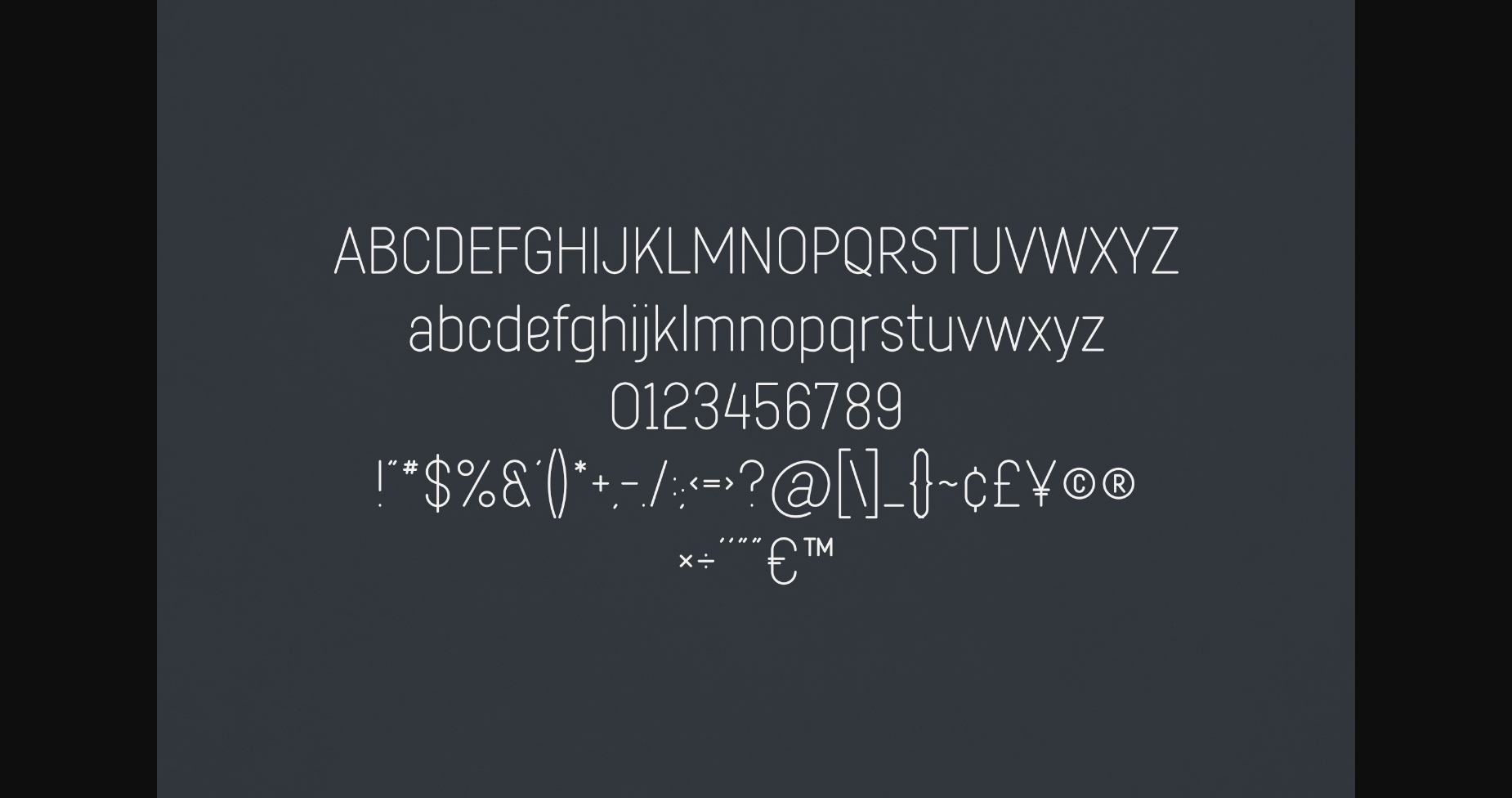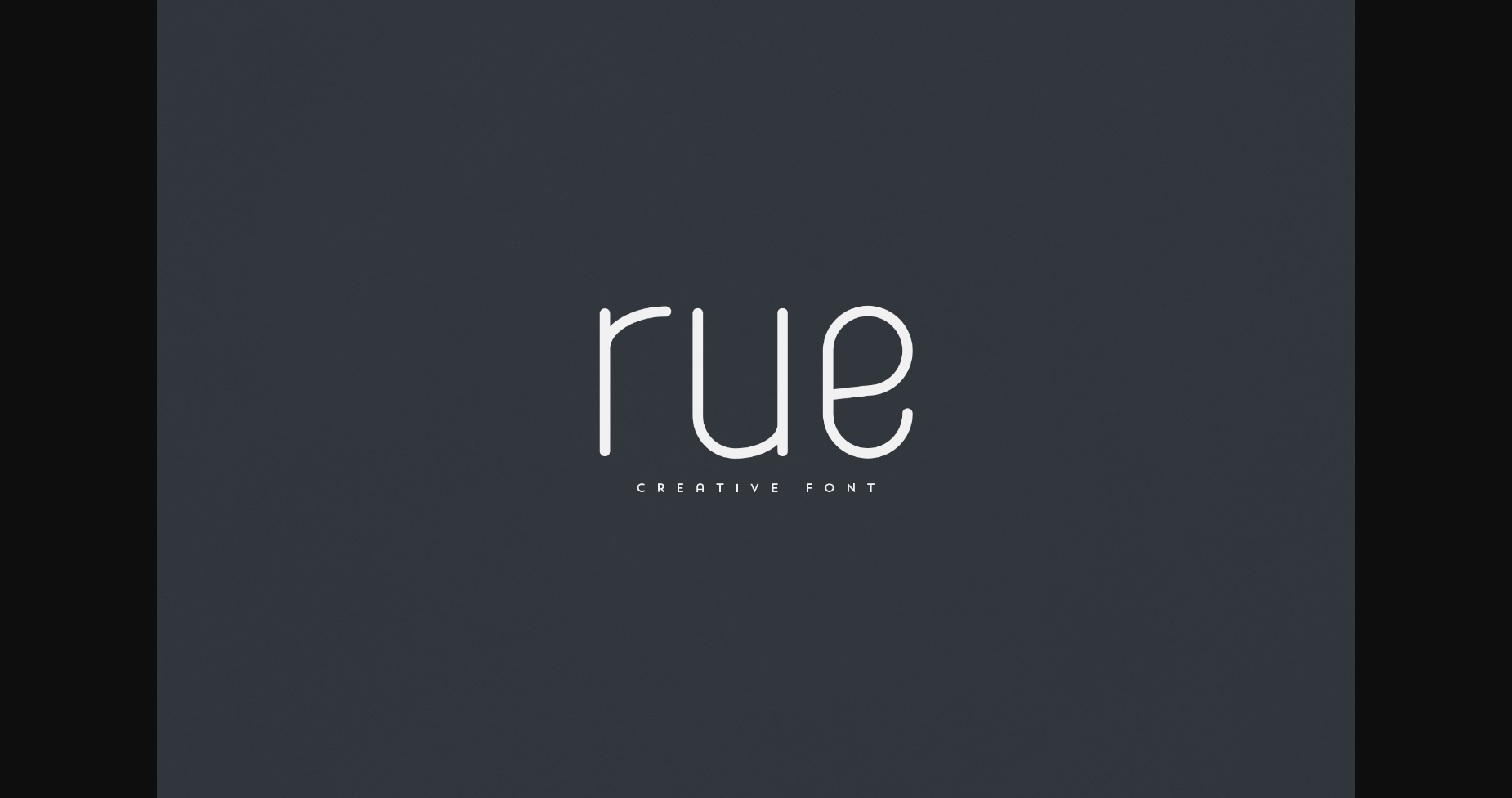
About Rue Font
Rue is an elegant and versatile font that will make your typography truly unique! It will enchant every logo, branding, headline, or plain text!